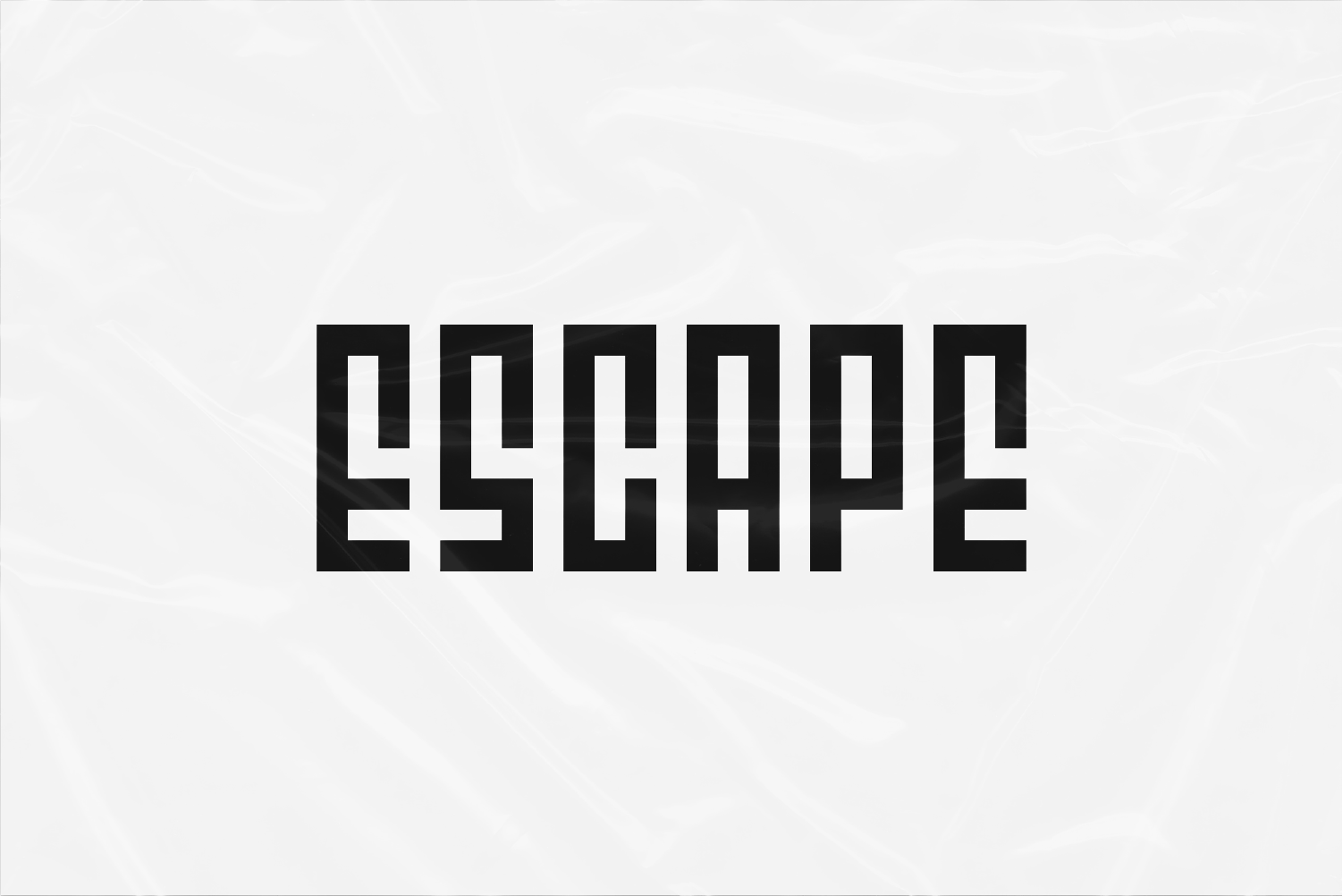
Escape Typeface
A bold and minimal display font ideal for headlines. The typeface is constructed using a grid system allowing for complete manipulation of the type.